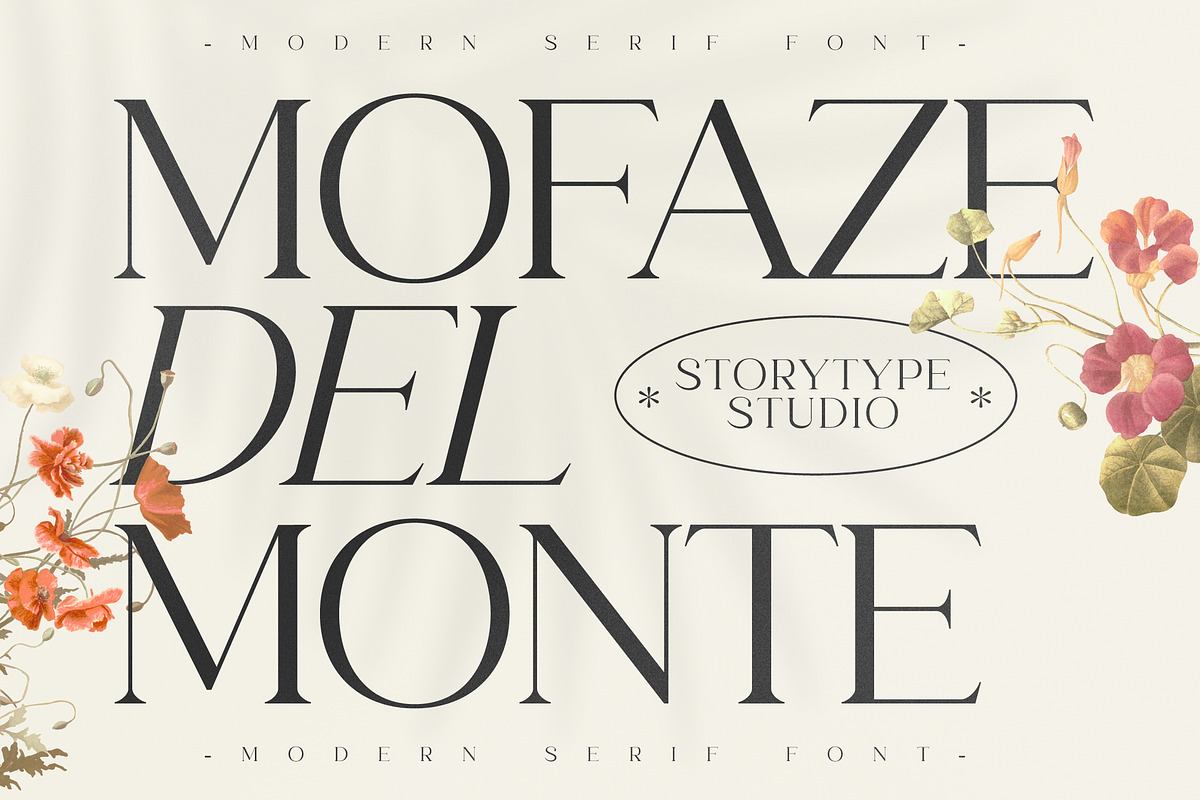
Mofaze Del Monte Modern Serif Font Free Download
The Mofaze Del Monte Modern Serif Font Free Download is a stylish and sophisticated serif typeface with a modern twist. Perfect for creating high-end branding, logos, editorial designs, and more, this font combines clean lines with elegant curves, offering a refined and contemporary aesthetic. Please note, for commercial use, a license must be purchased. You can download it for free for testing purposes.
With its balanced proportions and modern design, the Mofaze Del Monte Modern Serif Font Free Download is ideal for projects that require a professional, polished look. Whether you're working on luxury branding, print materials, or digital content, this font will add a touch of elegance and modernity to your work.